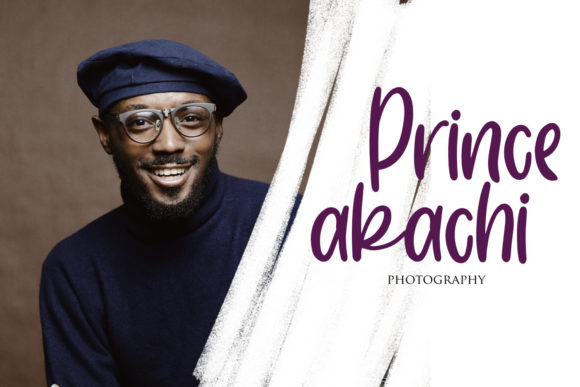
Bottarga Font
Bottarga is a relaxed and informal handwritten font. This adaptable font will look great on a variety of design ideas. It will add a fun and friendly touch to each of your projects!